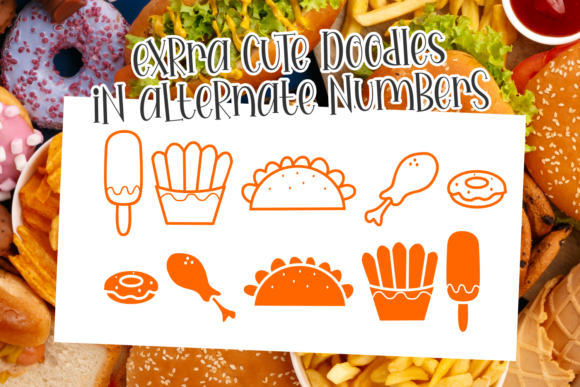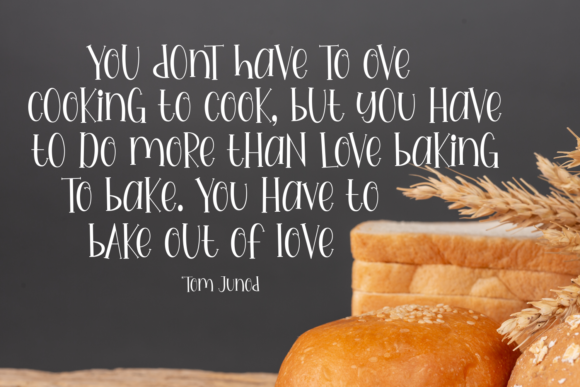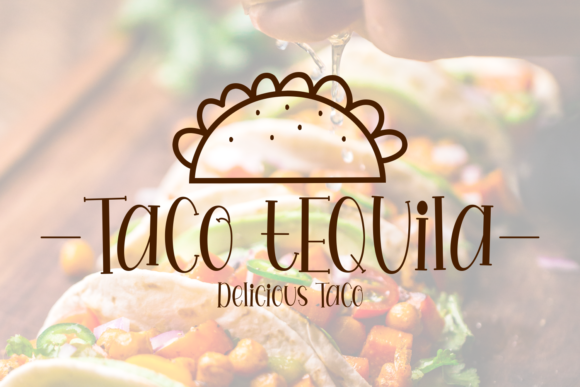
Introducing Delicious Monday: The Perfect Font for Foodies and Designers
Are you a food blogger, chef, or designer looking for a font that can add a touch of playfulness and sophistication to your culinary creations? Look no further than Delicious Monday, a delicious and playful serif font that’s perfect for hospitality menus, food articles, websites, culinary blogs, social media posts, ads, and more.
What Makes Delicious Monday So Special?
Delicious Monday is a unique and eye-catching font that’s designed to make your food-related content stand out from the crowd. Its serif design gives it a classic and elegant feel, while its playful and whimsical touches make it perfect for adding a dash of personality to your brand. Whether you’re creating a menu for a trendy restaurant, writing a food blog, or designing a social media post, Delicious Monday is the perfect choice.
Key Features of Delicious Monday
• Playful and Whimsical Design: Delicious Monday features a playful and whimsical design that’s perfect for adding a touch of personality to your brand.
• Serif Design: The font’s serif design gives it a classic and elegant feel that’s perfect for food-related content.
• Highly Versatile: Delicious Monday can be used for a wide range of applications, including hospitality menus, food articles, websites, culinary blogs, social media posts, ads, and more.
• Easily Readable: The font is highly legible, making it easy for readers to quickly scan and understand your content.
Use Cases for Delicious Monday
Delicious Monday is a highly versatile font that can be used for a wide range of applications, including:
• Hospitality Menus: Add a touch of elegance and sophistication to your restaurant’s menu with Delicious Monday.
• Food Articles: Use Delicious Monday to add a playful and whimsical touch to your food articles and blog posts.
• Websites: Create a cohesive brand identity with Delicious Monday, perfect for food bloggers, restaurants, and culinary businesses.
• Culinary Blogs: Stand out from the crowd with Delicious Monday, the perfect font for food bloggers and culinary enthusiasts.
• Social Media Posts: Add a dash of personality to your social media posts with Delicious Monday, perfect for food-related businesses and influencers.
• Ads: Use Delicious Monday to create eye-catching ads that will grab the attention of foodies and culinary enthusiasts.
Why Choose Delicious Monday?
With so many fonts to choose from, why should you choose Delicious Monday? Here are just a few reasons:
• Unique Design: Delicious Monday features a unique and eye-catching design that’s sure to make your content stand out.
• Highly Versatile: The font can be used for a wide range of applications, making it a great investment for designers and crafters.
• Easily Readable: Delicious Monday is highly legible, making it easy for readers to quickly scan and understand your content.
• Supports Multiple Languages: The font supports multiple languages, making it a great choice for global brands and businesses.
Font Name Delicious Monday Font
Author shineink.designlab
In conclusion, Delicious Monday is a delicious and playful serif font that’s perfect for foodies and designers alike. Its unique design, highly versatile nature, and easily readable font make it the perfect choice for a wide range of applications. Whether you’re creating a menu for a trendy restaurant, writing a food blog, or designing a social media post, Delicious Monday is the perfect font for you.